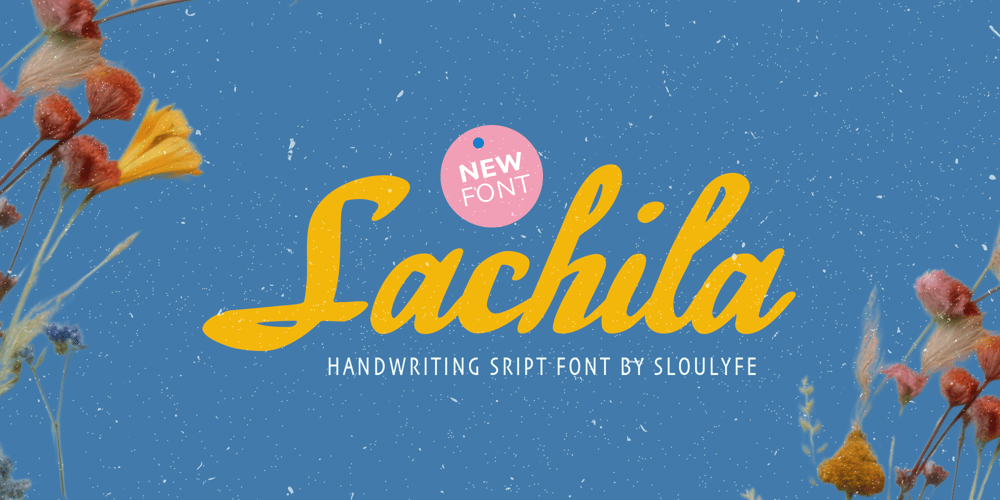
Sachila
Sachila font
Sachila Font Family was designed by Amelia Dian Isnaini and published by Sloulyfe Studio. Sachila contains 1 styles and family package options. Meet Sachila – a sassy, bold script with timeless elegance. Elevate your designs, whether it’s for killer titles, eye-popping book covers, or your brand’s standout logo.Features : uppercase & lowercase numbers and punctuation multilingual & PUA encoded